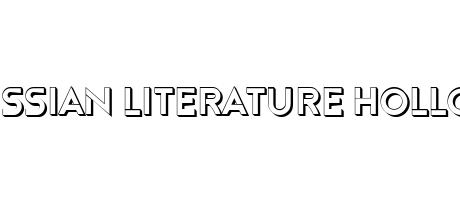
Russian Literature
Russian Literature Hollow: This font possesses a bold, slightly edgy character. Its clean lines give it a modern feel, yet the subtle outlining creates a sense of depth and dimension. The consistent weight and spacing across the letters contribute to its readability and balanced aesthetic. It’s a strong choice for titles or headings, conveying authority and sophistication.